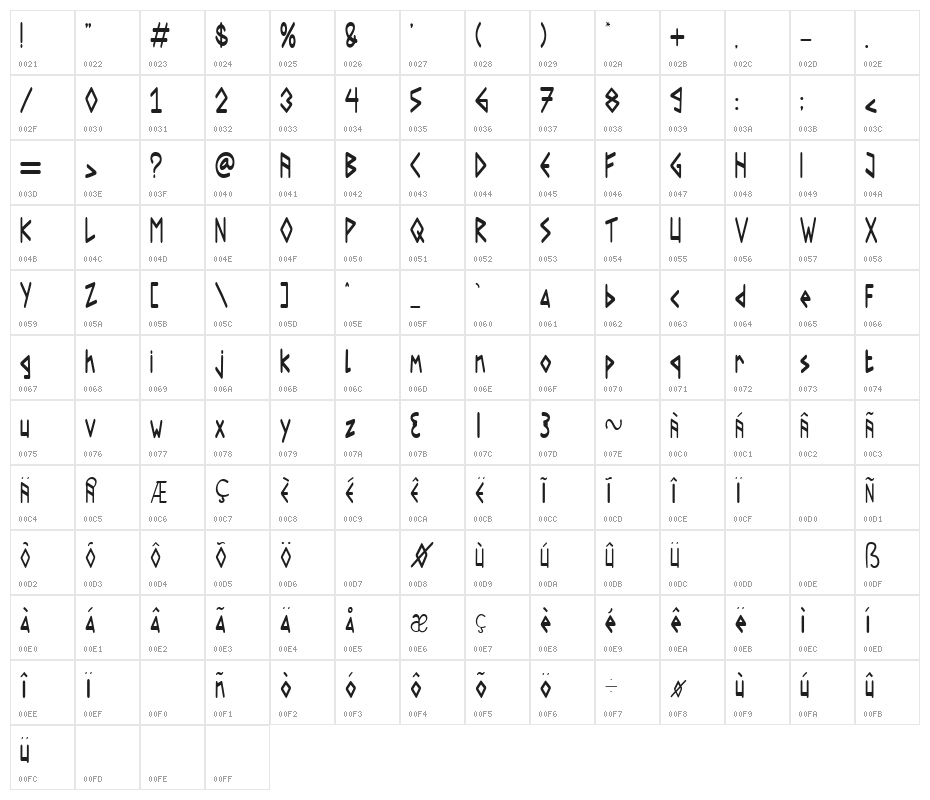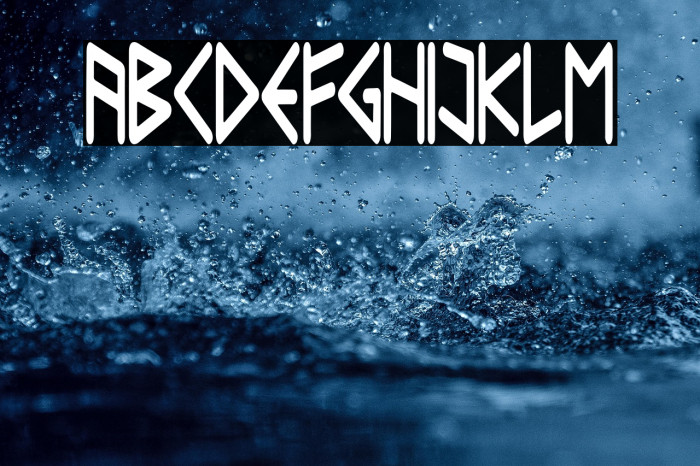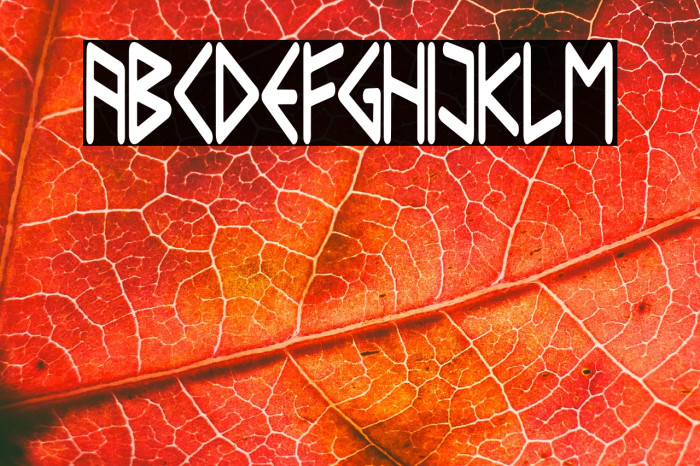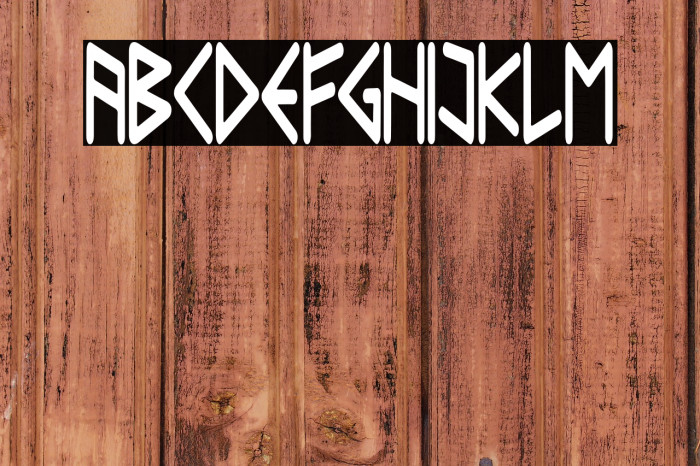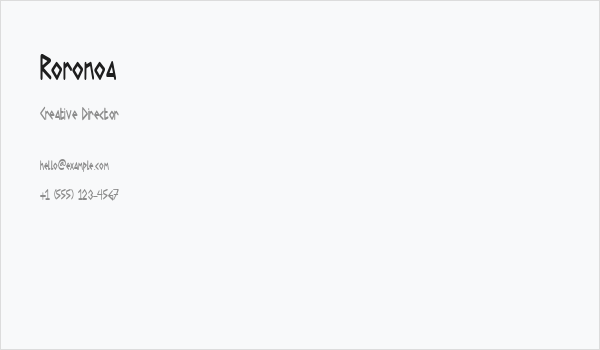
Roronoa Font
Roronoa Description
This font features a unique, angular design with a playful and slightly irregular style. The characters are bold and have a hand-drawn appearance, giving them a distinctive and artistic look. The uppercase and lowercase letters maintain a consistent style, with sharp edges and varying stroke widths that add to its dynamic feel. The numbers and special characters follow the same design principles, ensuring a cohesive appearance across all glyphs. This font's quirky and modern aesthetic makes it stand out, suitable for creative and informal applications.
Overall StyleModern, Artistic
Proposed ProjectsIdeal for creative projects such as posters, logos, comic books, and children's book covers.